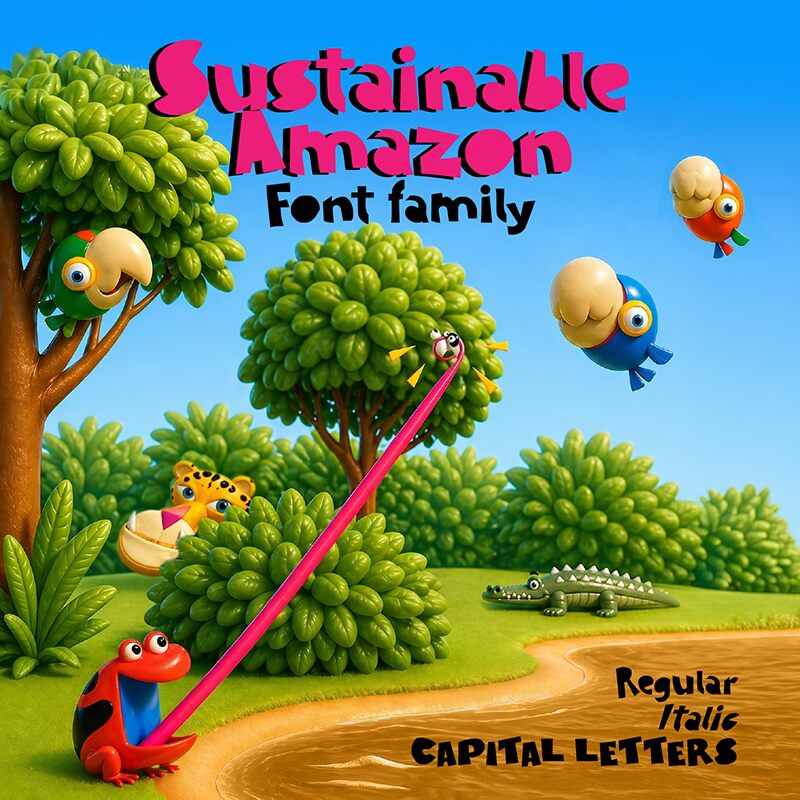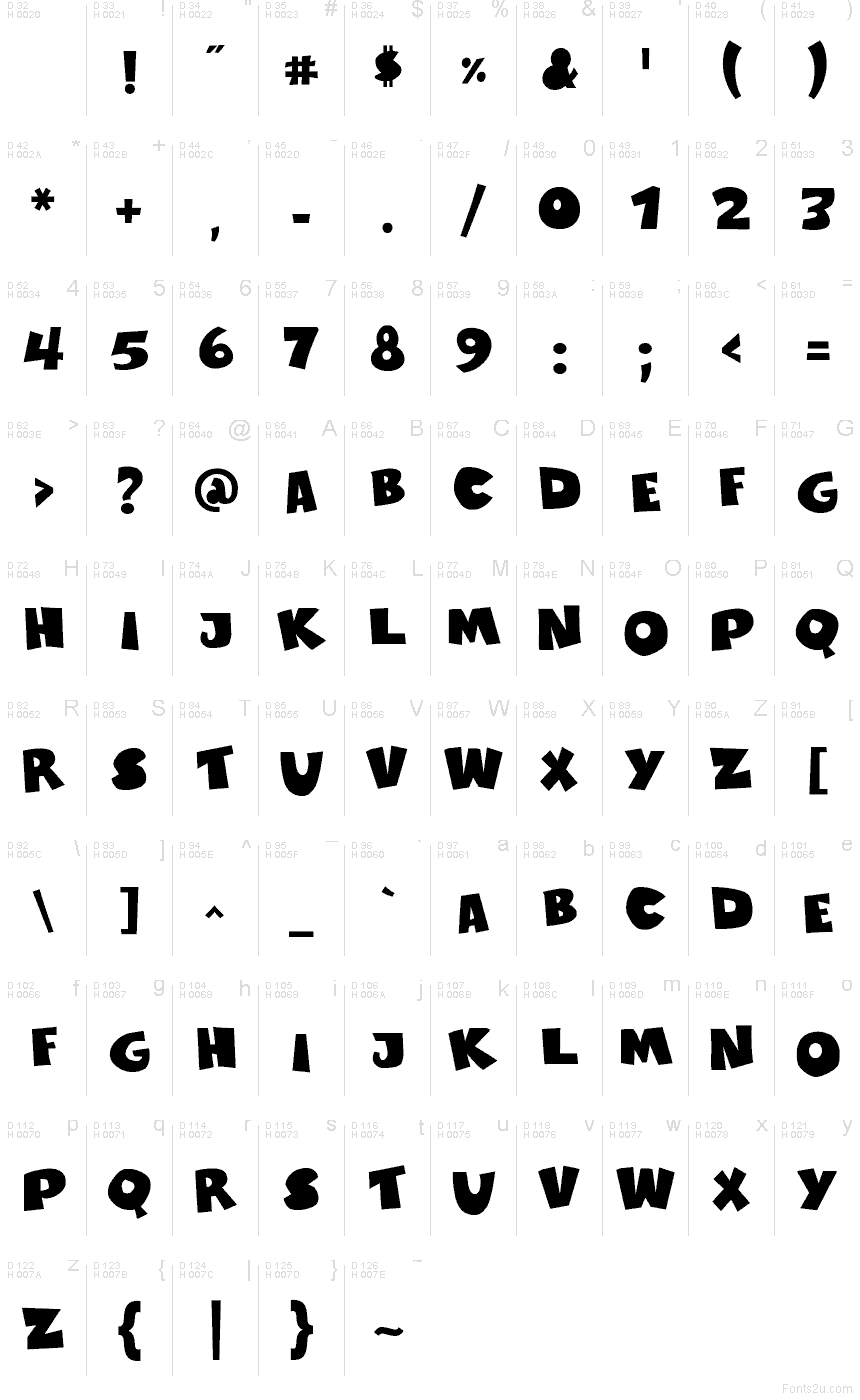
Sustainable Amazon CL by Galdino Otten is a free cartoon caps display font with a big, jungle-poster attitude. The letters feel carved from soft, uneven shapes, with swollen curves, heavy diagonals, and a slightly lopsided bounce that keeps the whole font lively rather than slick.
It makes sense on packaging, event posters, kids' book covers, streaming title cards, and bold social graphics where a free font needs instant character in just a few letters. Use it for short headlines, logo sketches, or monograms when you want the caps to feel loud, playful, and a little wild without drifting into novelty-party territory.